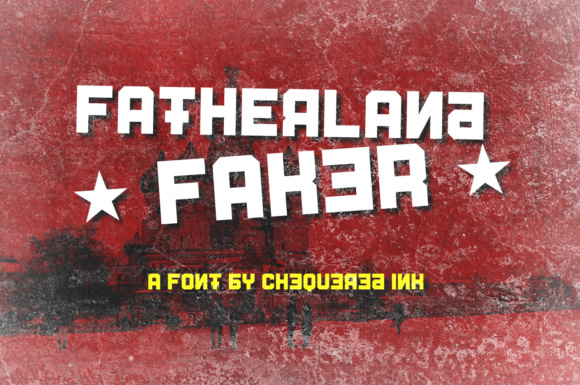
Immerse yourself in the enigmatic world of Fatherland Faker, where the boundaries of typography blur and imagination takes flight. This display font, a masterfully crafted creation by Chequered Ink, is an enchanting symphony of bold lines and captivating curves.
Step into a realm where letters dance with mischievous charm, inviting you to unleash your creativity and weave captivating tales. Fatherland Faker's bold presence commands attention, making it an unforgettable choice for headlines, posters, and designs that demand impact.
But beyond its striking appearance, Fatherland Faker possesses a depth of character that will captivate your audience. Its meticulously designed curves and sharp angles embody a sense of both rebellion and elegance, a testament to the boundless creativity that inspired its creators.
As you delve into the world of Fatherland Faker, you'll discover a font that transcends the ordinary, becoming a vibrant extension of your own imagination. Its versatility knows no bounds, effortlessly adapting to a myriad of design styles, from edgy streetwear to sophisticated branding.
So, why settle for ordinary when you can embrace the extraordinary? Unleash the power of Fatherland Faker, and let your designs soar to new heights of creativity and impact. Experience the captivating allure of a font that will leave an enduring impression on all who behold it.